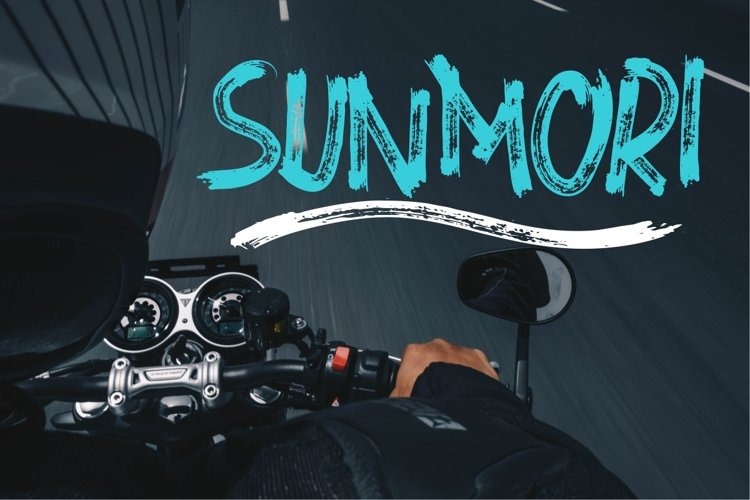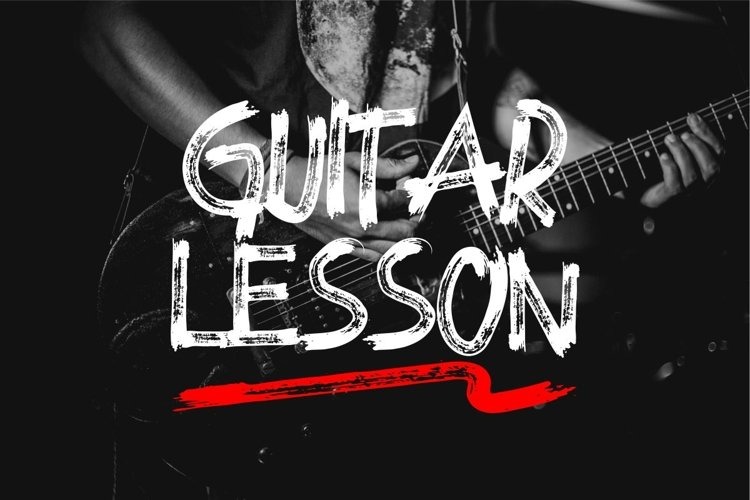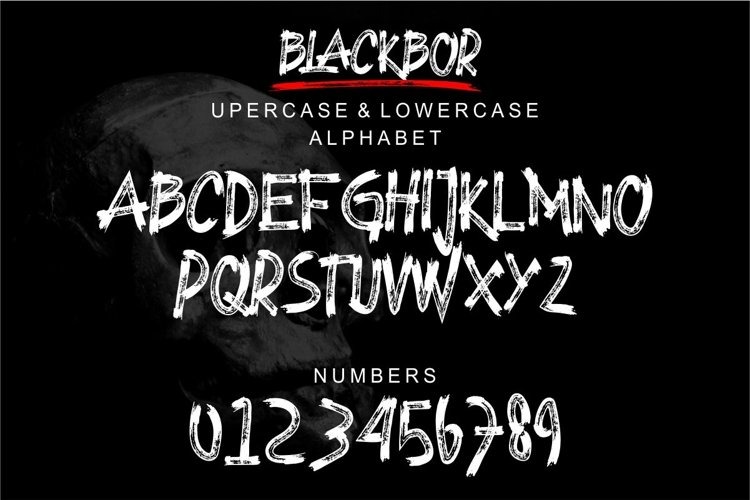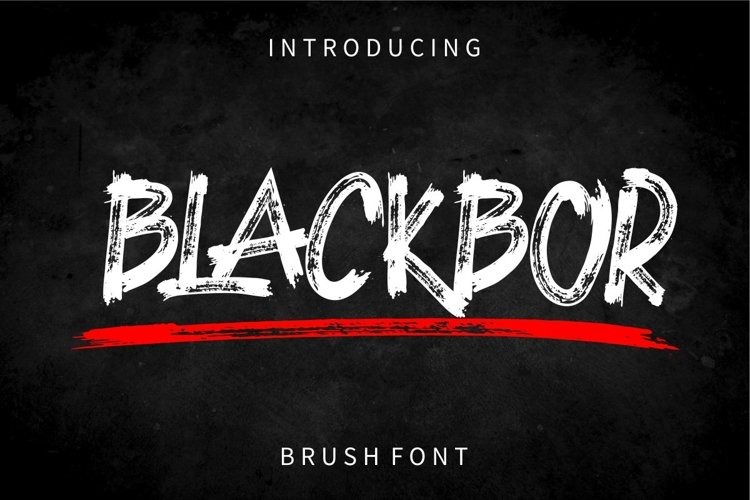
BLACKBOR Brush Font
This is a lovely paint-brushed handwritten font with tropical vibes, featuring a sweet flow and unique glyph. This font is perfect for displays, titles, logos, packaging, crafts, labels, T-shirts, hoodies, tote bags, posters, snapbacks, stickers, quotes, and any advertisement that requires energetic typography. BLACKBOR comes with stylish ligatures and swashes.